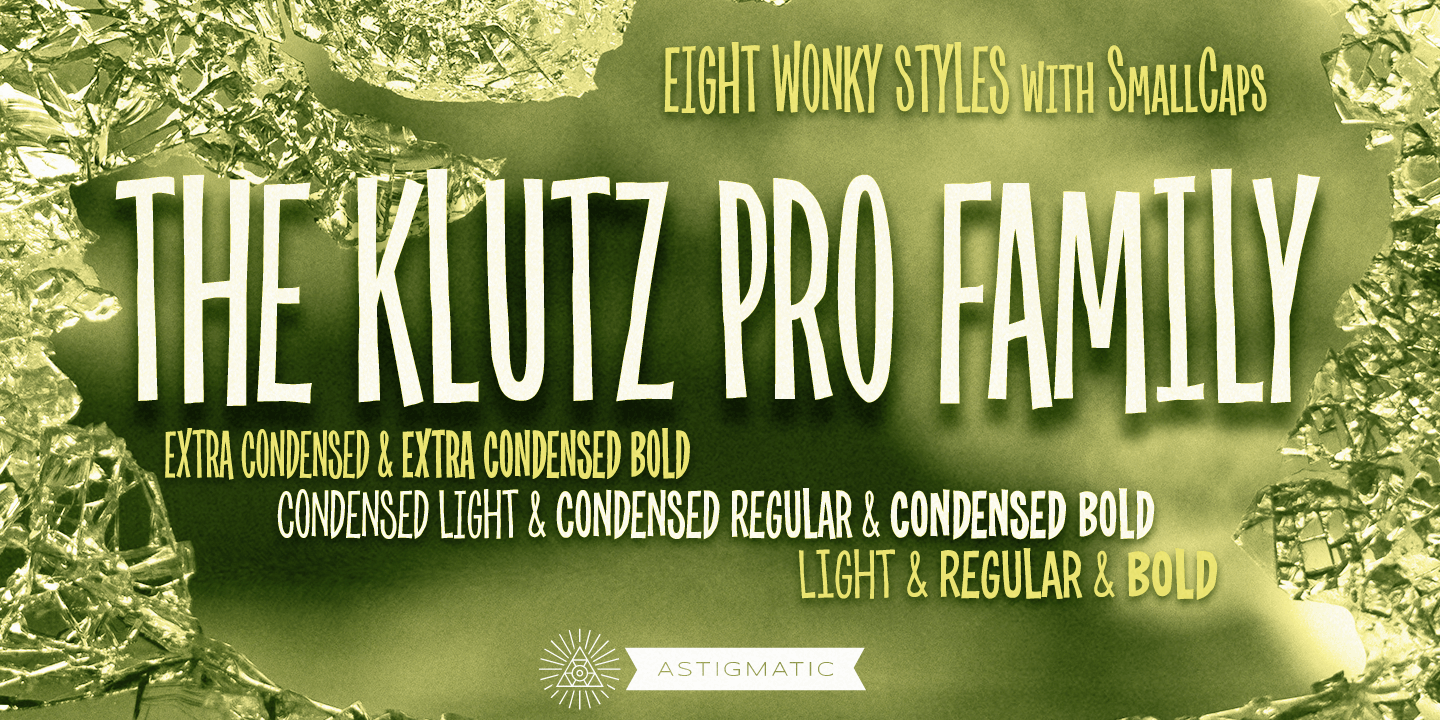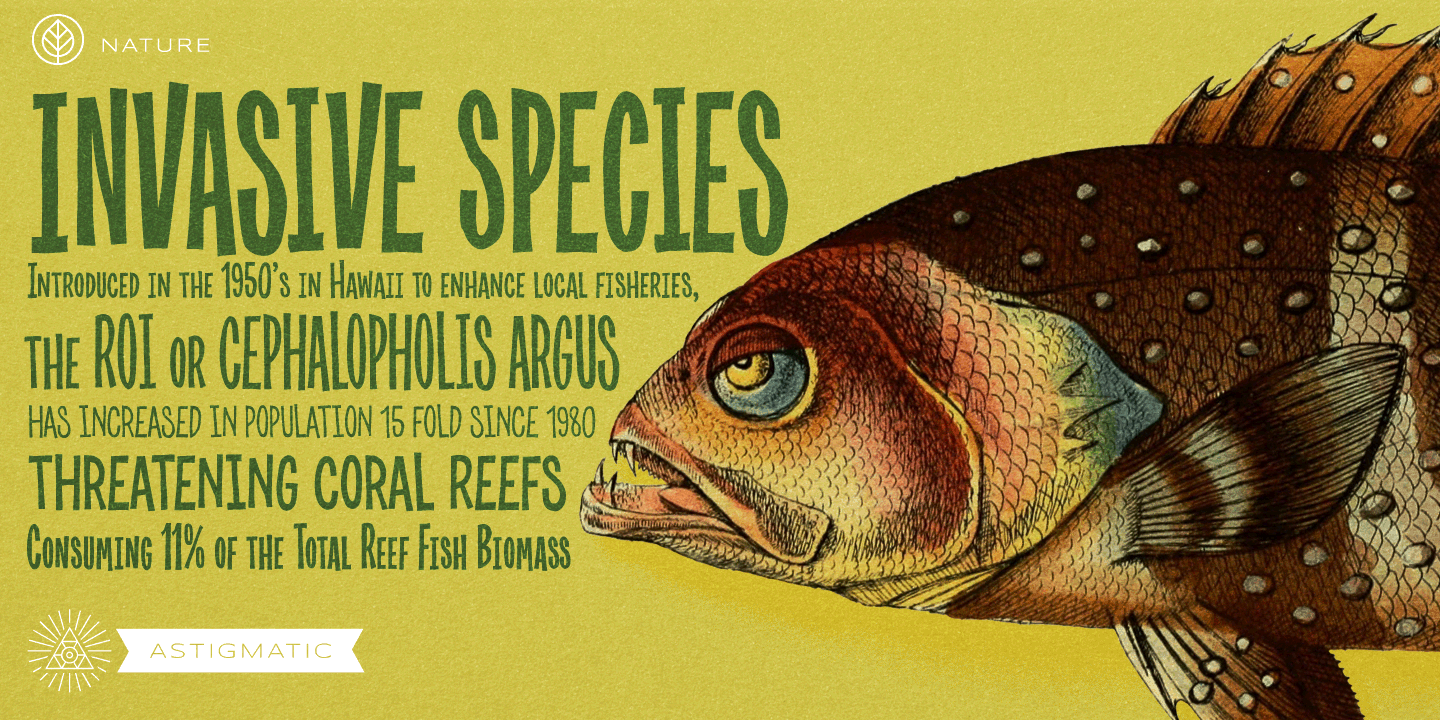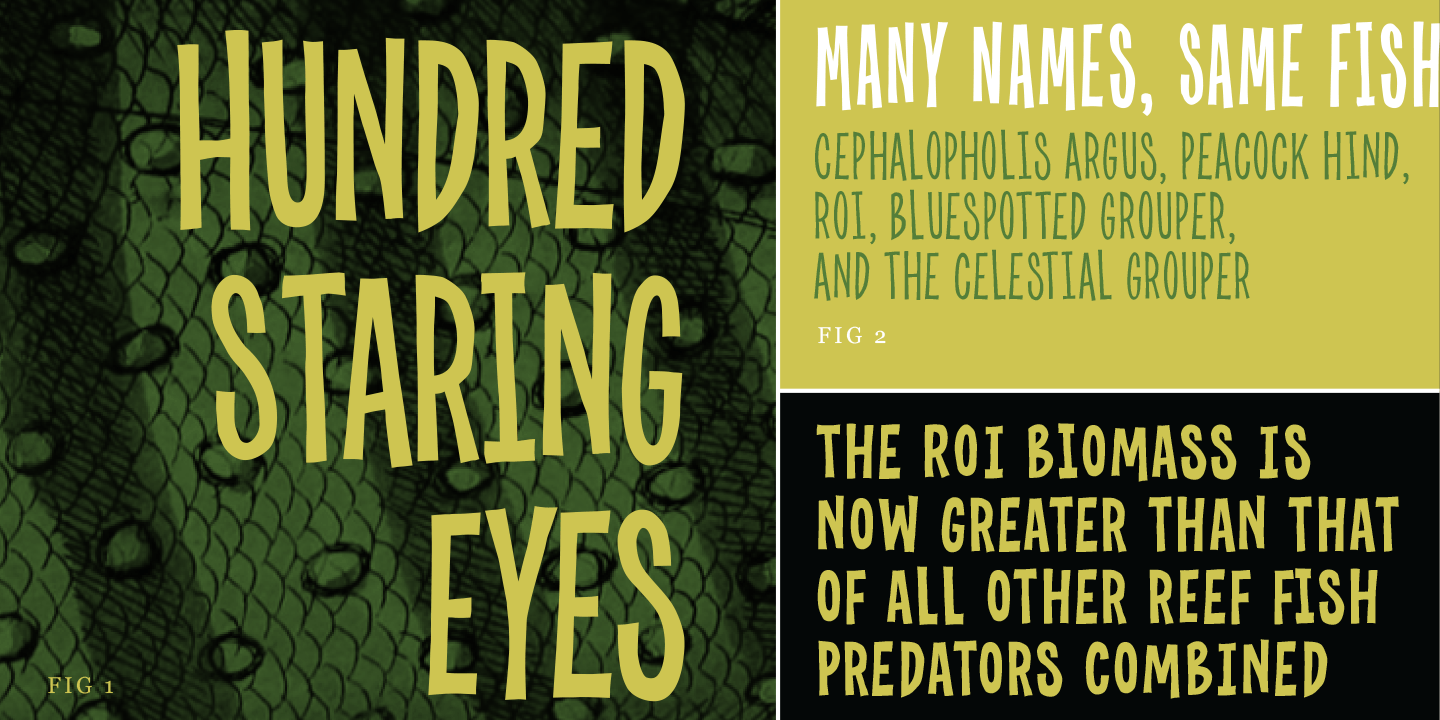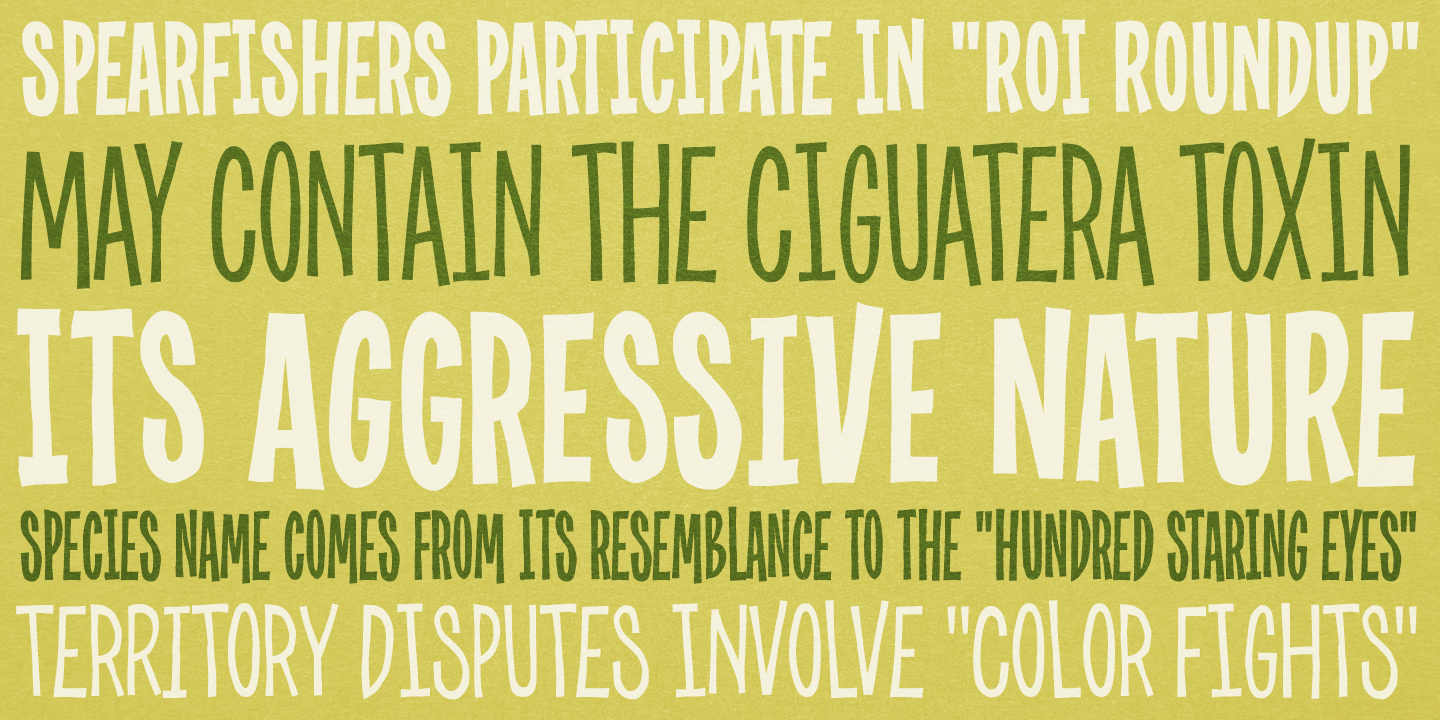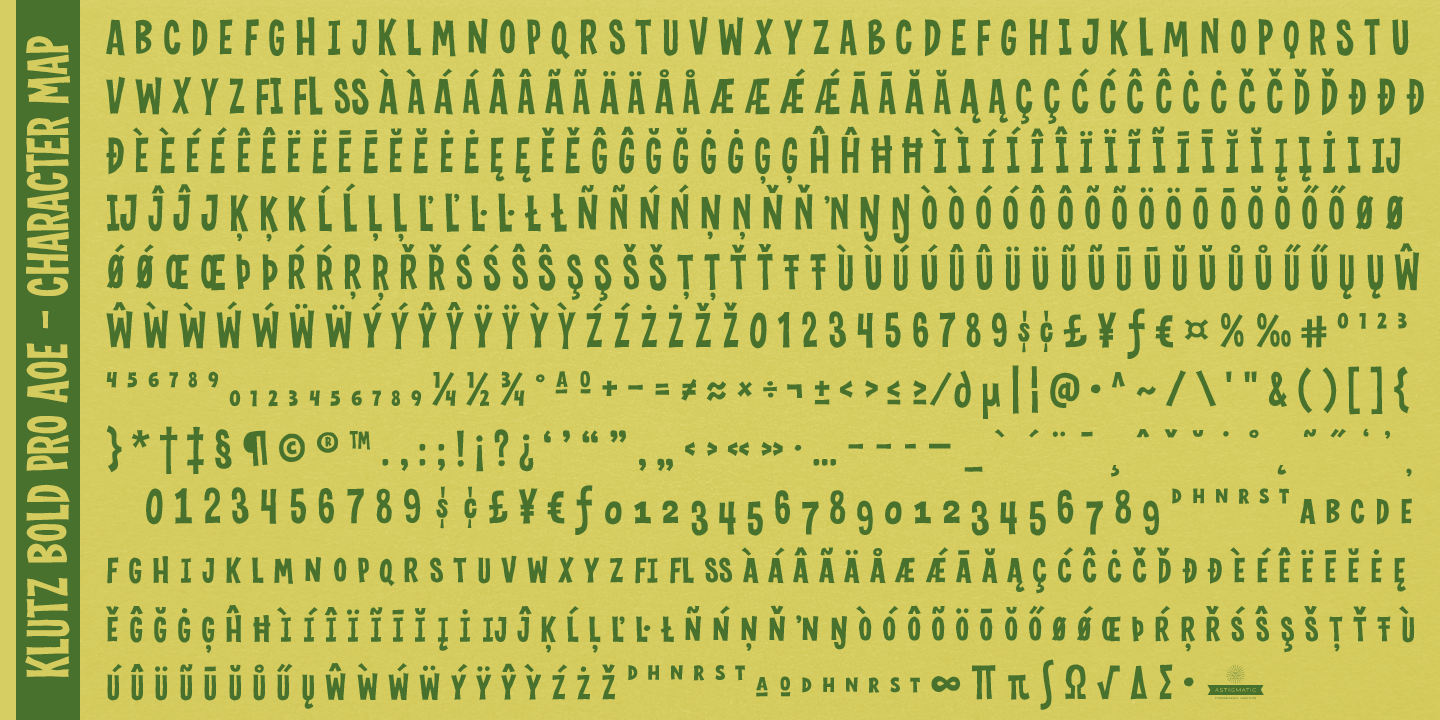
Klutz AOE Pro Complete
Font Family by Astigmatic One Eye
The Klutz AOE Pro Family was inspired by the plethora of naive hand drawn lettering becoming commonplace in modern advertising. What I hadn't seen was a family of hand drawn typefaces, in a range of widths and weights, with both alternate capitals as well as small caps character sets . . . and so Klutz Pro was born.
The letterforms started with a few letters my daughter had drawn which I expanded on from there. Pulling from inspirations in retro cartoon titling and modern hand lettering playfulness, the full font was born, with weights and width to follow.
Quirky, eclectic, and just a bit ridiculous, it lends itself to a range of design typesetting - although I must confess, even though it all began with the Regular width, the Extra Condensed styles are my personal favorites. What's your favorite?